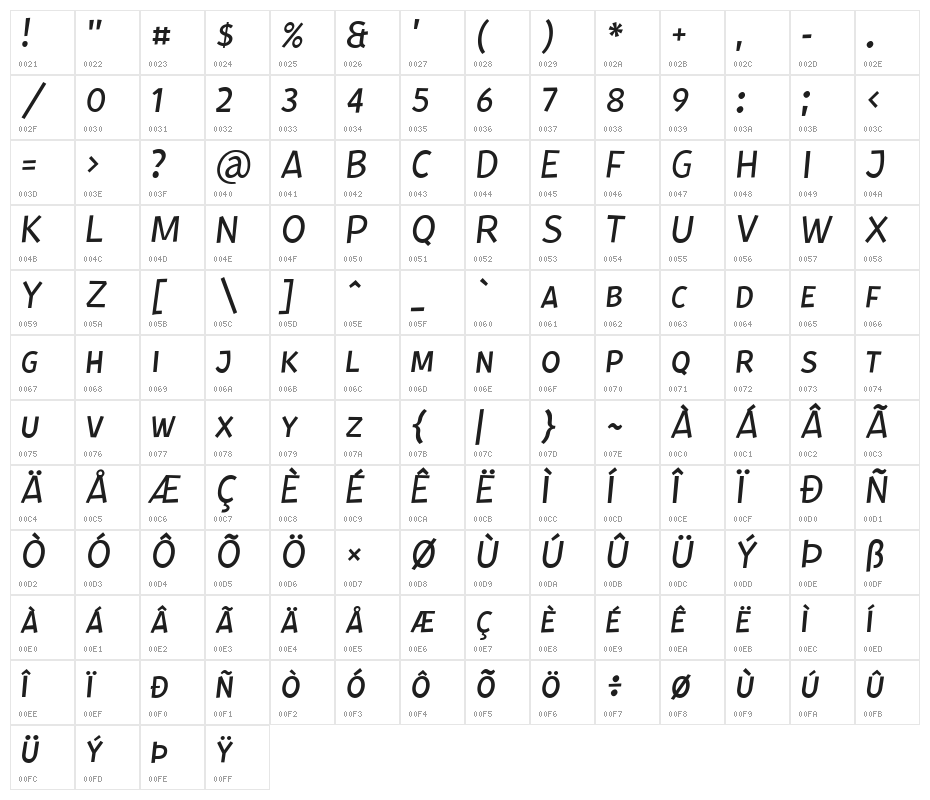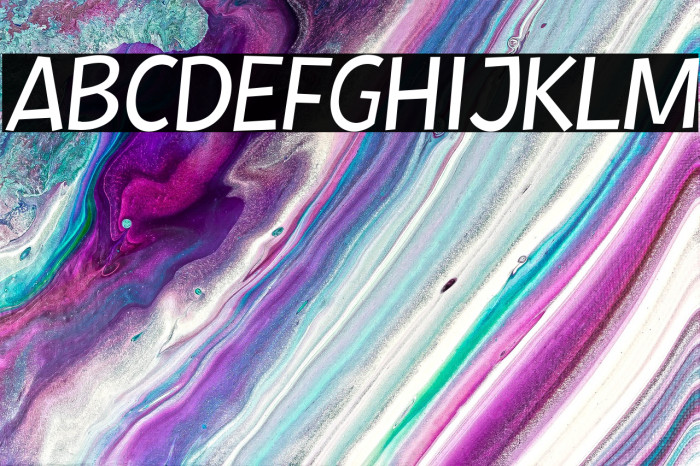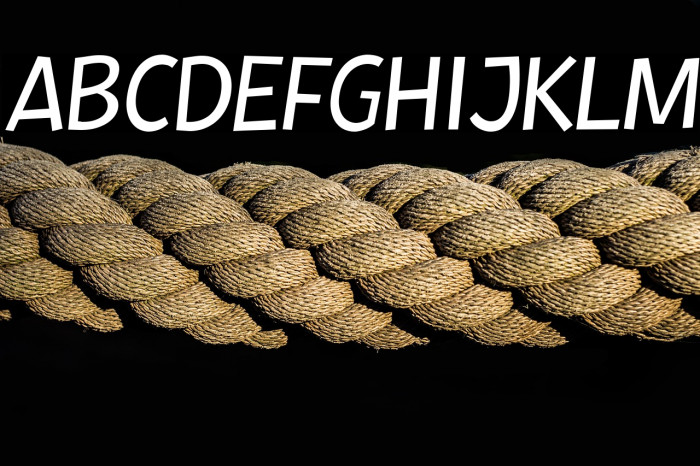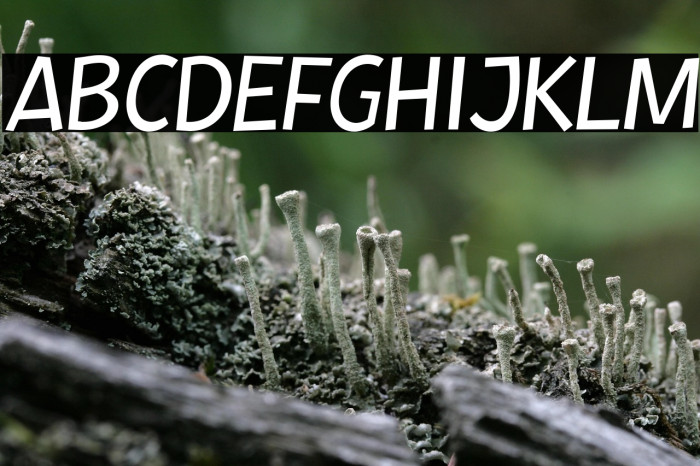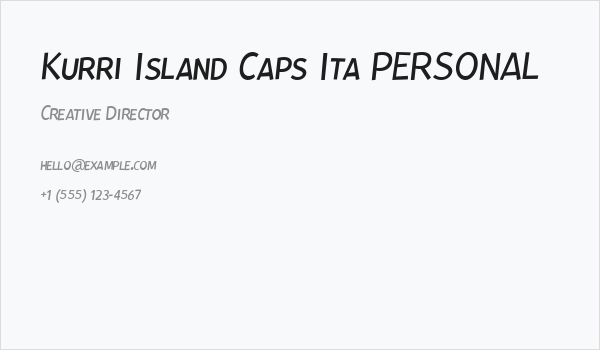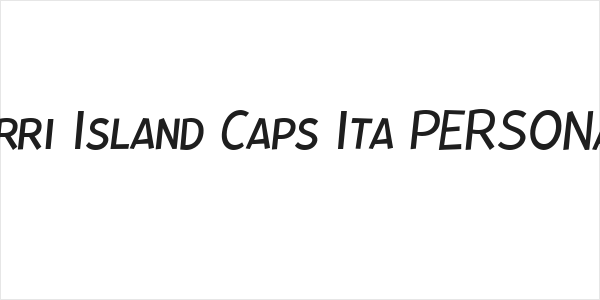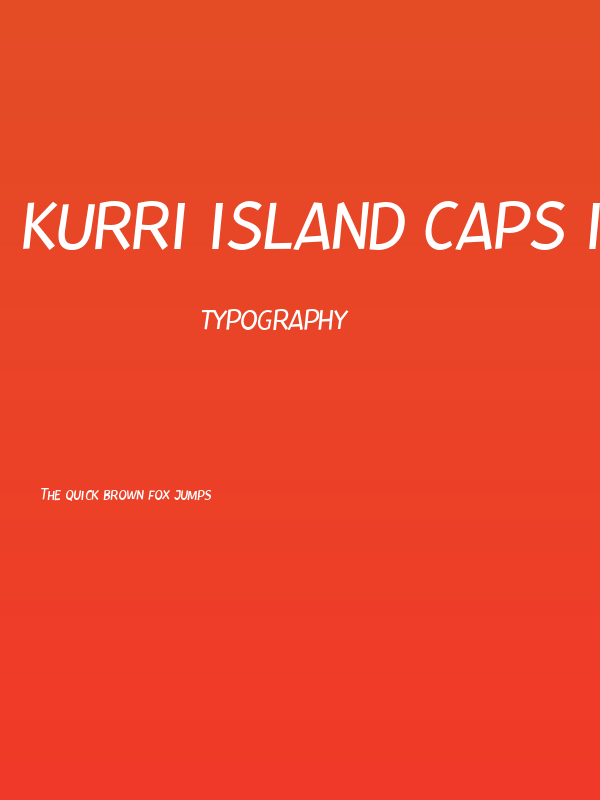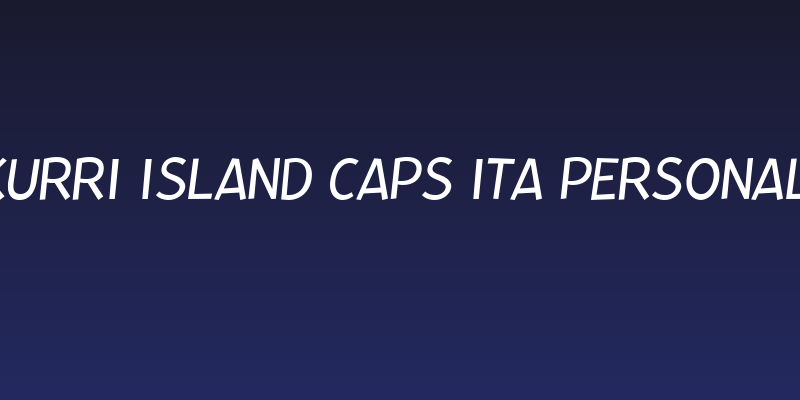
Kurri Island Caps Ita PERSONAL Font
Kurri Island Caps Ita PERSONAL Description
This font features a dynamic and modern style with a slight italic slant, giving it a sense of movement and energy. The characters are bold and well-defined, with a consistent stroke width that maintains readability across various sizes. The uppercase letters are prominent and slightly condensed, while the numerals are clear and straightforward. Special characters are included, maintaining the same stylistic elements as the letters and numbers. This font is versatile, suitable for both digital and print media, and can effectively capture attention in headlines or titles.
| Proposed Projects | Ideal for branding, advertising, posters, and digital media where a modern and energetic look is desired. |